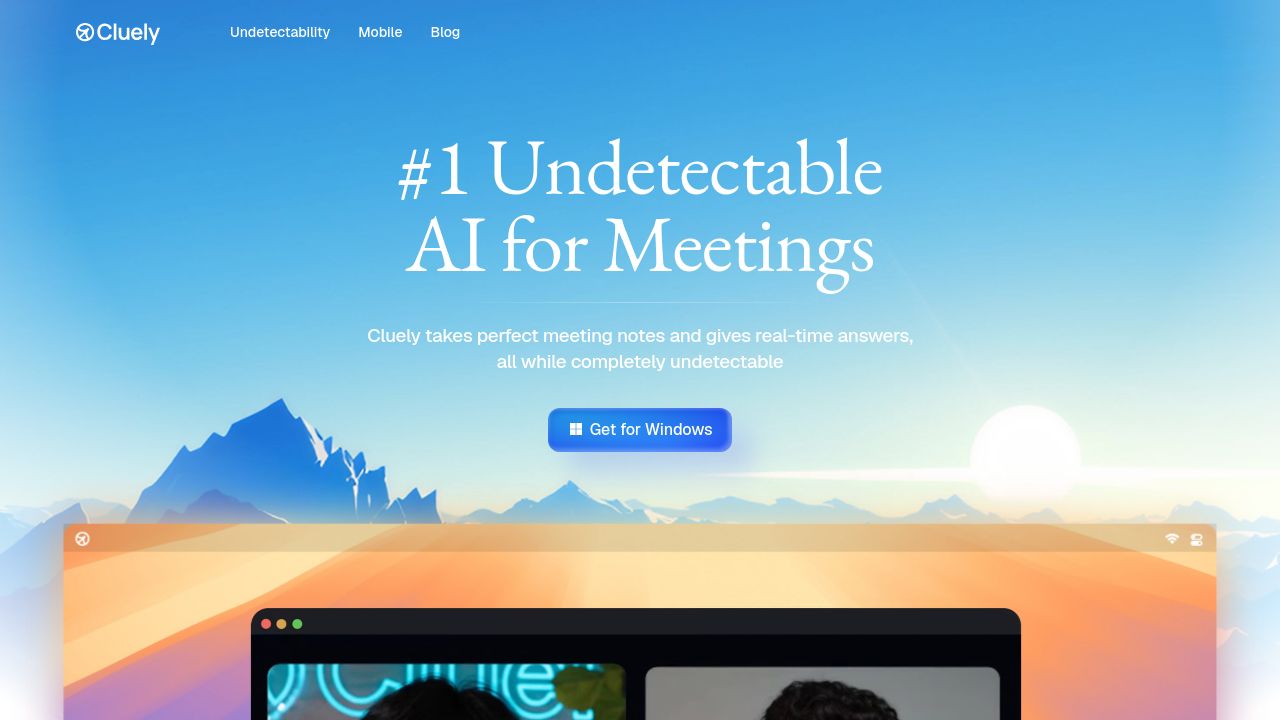
What fonts does Cluely use?
Cluely.com uses EB Garamond, Geist and forma as its main typefaces. Arial, Helvetica, Segoe UI Emoji and Apple Color Emoji are declared as fallbacks. 8 fonts detected, last checked Sep 23, 2026.
Cluely.com leverages a distinctive blend of fonts to enhance its identity as an AI notetaker and meeting assistant. Arial provides a familiar and accessible base, while EB Garamond adds a touch of classic sophistication. The custom fonts Geist and forma contribute to a unique visual language that speaks to the innovative technology behind Cluely's offerings. This thoughtful typography is designed to engage users seeking seamless meeting support.
Frequently asked questions about Cluely.com's fonts
What fonts does Cluely.com use?
Cluely.com uses EB Garamond, Geist and forma as its main typefaces. Arial, Helvetica, Segoe UI Emoji and Apple Color Emoji are declared as fallbacks. 8 fonts detected, last checked Sep 23, 2026.
What fonts are used on cluely.com?
Cluely.com primarily uses Arial, EB Garamond, Geist, and forma. Arial serves as a system font, while EB Garamond offers a classic touch. Geist and forma are custom fonts designed specifically for the brand.
How does EB Garamond compare to other fonts?
EB Garamond offers a timeless elegance that distinguishes it from more modern fonts. Compared to alternatives like Times New Roman, it has a more refined aesthetic, making it suitable for a professional yet approachable look.
What styles and weights are available for the fonts on cluely.com?
The primary fonts in use on cluely.com come in regular weight (400). Arial, EB Garamond, Geist, and forma are all utilized in this weight to maintain consistency in the brand's visual identity.